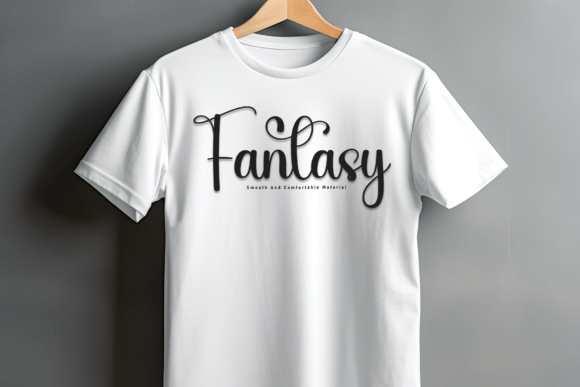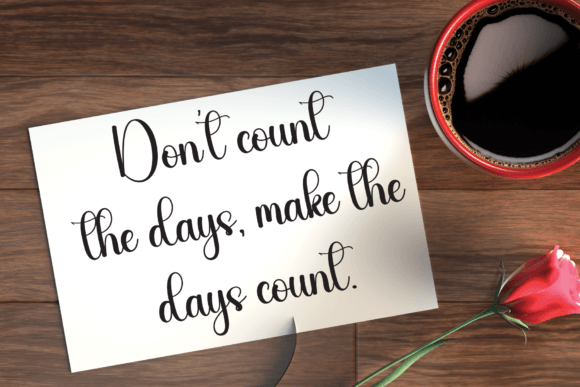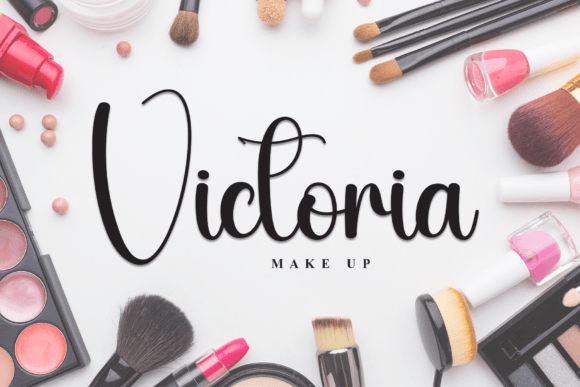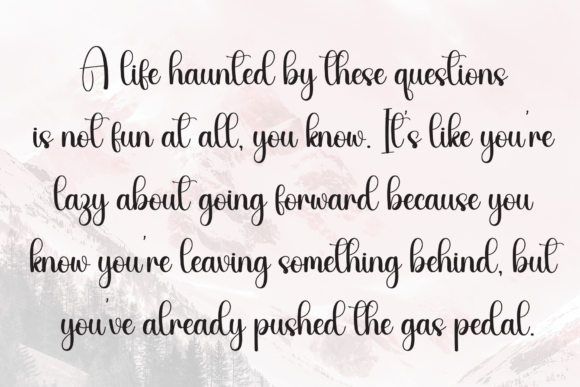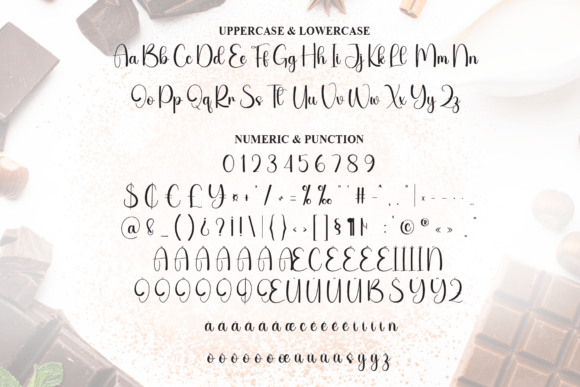
Introducing Chocolate Font: The Sweetest Addition to Your Design Toolbox
Are you looking for a font that can add a personal touch to your designs? Do you want to create a warm and cozy atmosphere in your text? Look no further than Chocolate Font, a charming handwritten font that is sure to make your designs stand out. In this article, we’ll take a closer look at Chocolate Font, its features, and how you can use it to add a sweet and casual vibe to your designs.
What is Chocolate Font?
Chocolate Font is a beautiful, handwritten font that is designed to give your text a warm and friendly feel. Its smooth, flowing letters are perfect for creating a personal and cozy touch in your designs. Whether you’re working on a project for a client or creating something for your own brand, Chocolate Font is the perfect choice.
Key Features of Chocolate Font
- Handwritten style: Chocolate Font has a charming, handwritten style that gives your text a personal touch.
- Smooth and flowing letters: The font features smooth, flowing letters that create a warm and cozy atmosphere.
- Warm and friendly feel: Chocolate Font has a warm and friendly feel that makes it perfect for creating a casual and approachable vibe.
- Perfect for designs: The font is perfect for adding a sweet and casual touch to any design, from branding and packaging to social media graphics and more.
Who is Chocolate Font for?
Chocolate Font is perfect for designers, crafters, and anyone who wants to add a personal touch to their designs. Whether you’re working on a project for a client or creating something for your own brand, this font is sure to make your designs stand out.
How to Use Chocolate Font in Your Designs
Using Chocolate Font in your designs is easy. Here are a few tips to get you started:
- Pair it with bold fonts: Pair Chocolate Font with bold fonts to create a beautiful contrast and add visual interest to your designs.
- Use it for headings and titles: Use Chocolate Font for headings and titles to add a personal touch and create a warm and cozy atmosphere.
- Add it to your branding: Add Chocolate Font to your branding to create a consistent and recognizable look.
- Experiment with colors: Experiment with different colors to find the perfect combination that works with your design.
Benefits of Using Chocolate Font
There are many benefits to using Chocolate Font in your designs. Here are a few:
- Unique and recognizable: Chocolate Font is a unique and recognizable font that will help your designs stand out.
- Easy to read: The font is easy to read, making it perfect for body text and captions.
- Versatile: Chocolate Font is versatile and can be used in a variety of designs, from branding and packaging to social media graphics and more.
- Time-saving: Using a pre-made font like Chocolate Font can save you time and effort in your design process.
Tips and Tricks for Getting the Most Out of Chocolate Font
Here are a few tips and tricks for getting the most out of Chocolate Font:
- Experiment with different sizes: Experiment with different sizes to find the perfect fit for your design.
- Use it with images: Use Chocolate Font with images to create a beautiful and visually appealing design.
- Add texture and patterns: Add texture and patterns to your design to create a unique and interesting look.
- Play with colors: Play with different colors to find the perfect combination that works with your design.
Chocolate Font is a charming handwritten font that is sure to add a sweet and casual vibe to any design. With its smooth, flowing letters and warm, friendly feel, it’s the perfect choice for designers and crafters who want to create a personal and cozy touch in their text. Whether you’re working on a project for a client or creating something for your own brand, Chocolate Font is the perfect addition to your design toolbox.